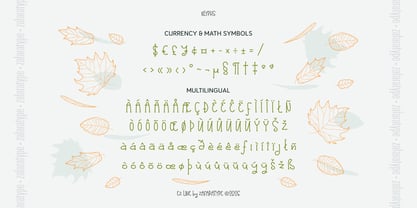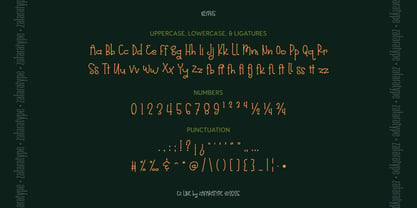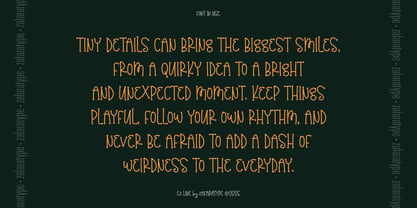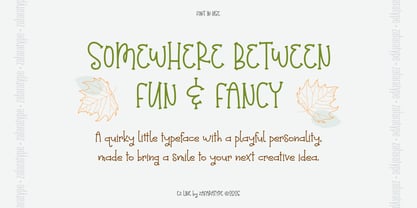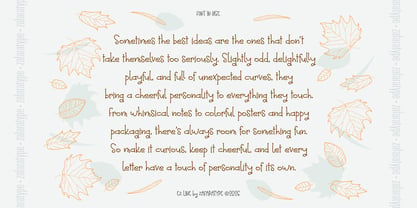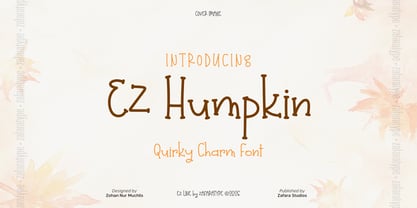
EZ Humpkin
La famille de polices EZ Humpkin a été conçue par Zohan Nur Muchlis et publiée par Zafara Studios. EZ Humpkin contient 1 styles. En savoir plus sur cette famille
EZ Humpkin is a quirky and playful handwritten display font that brings a cheerful personality through its wobbly shapes, rounded curves, and naturally irregular strokes. With its fun and expressive character, it feels casual, friendly, and slightly unexpected, giving every word a charming handmade touch.
Designed to feel imperfect in the best way, EZ Humpkin is perfect for branding, packaging, posters, greeting cards, children's projects, social media, invitations, stickers, labels, and creative stationery. Whether you're creating something colorful, cheerful, or a little bit quirky, it adds a warm and distinctive personality to every design.